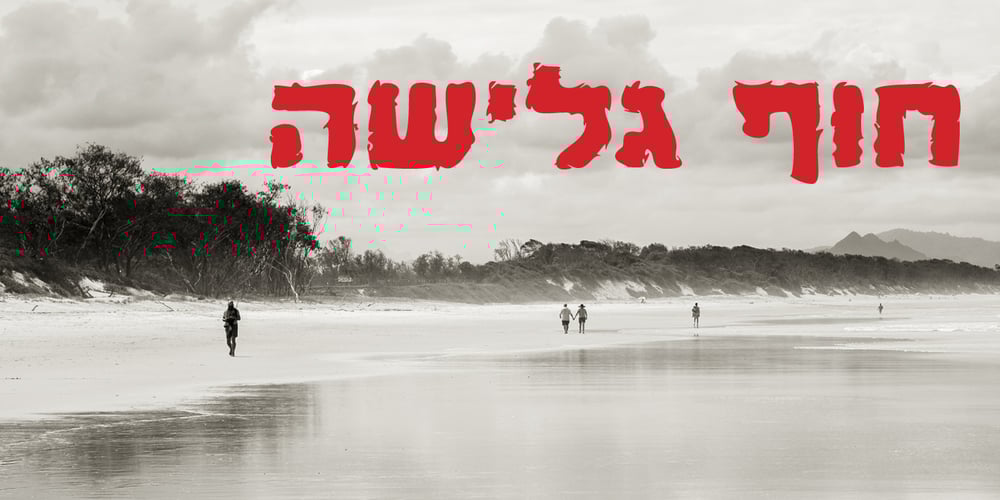
Kartisiot MF
Kartisiot MF font
Kartisiot MF Font Family was designed by Eliyahu Fried and published by Masterfont. Kartisiot MF contains 1 styles and family package options. This rough and dirty font is just perfect for your next horror movie poster.